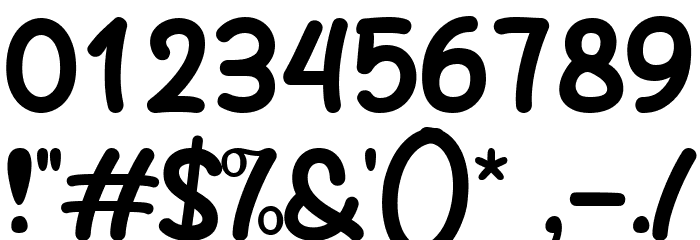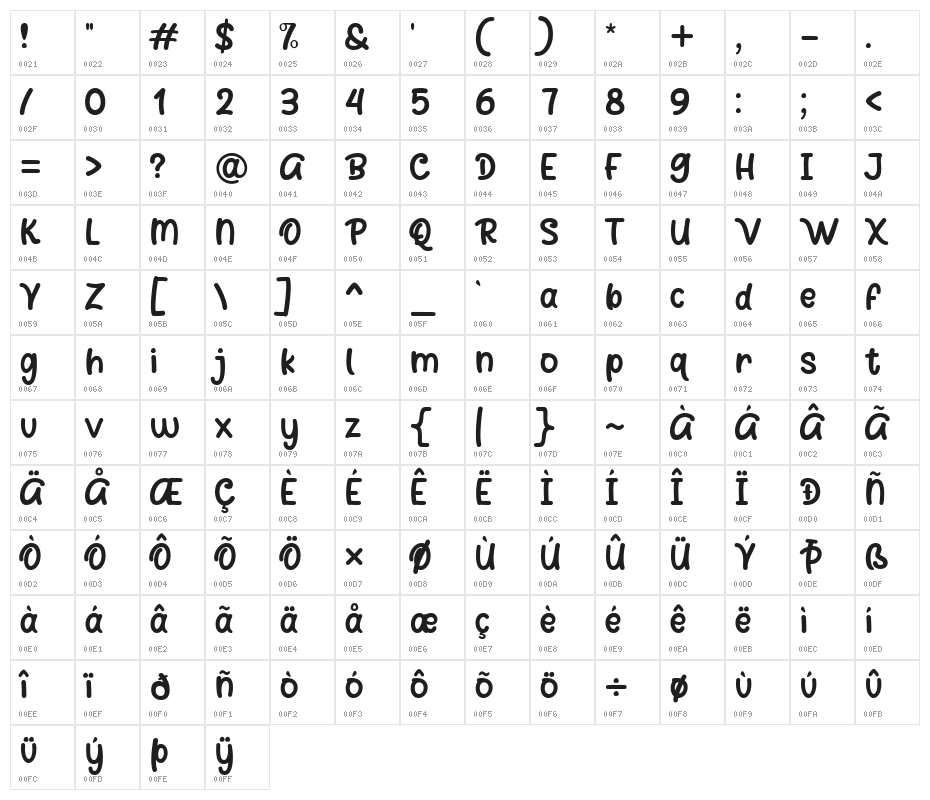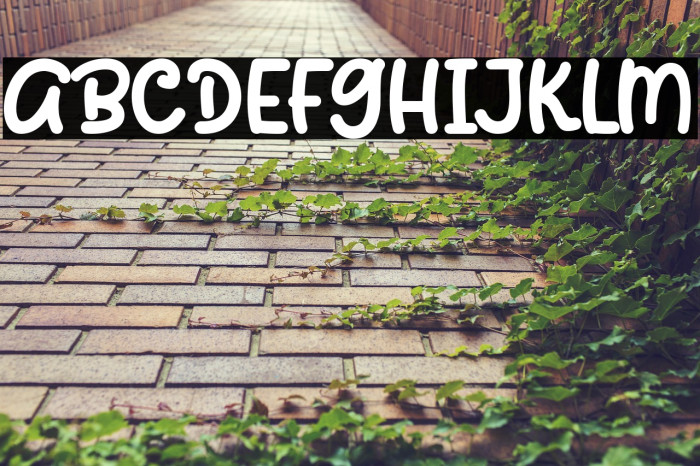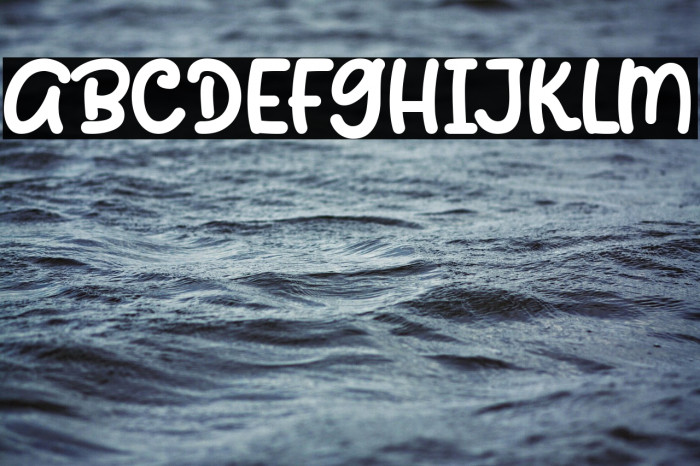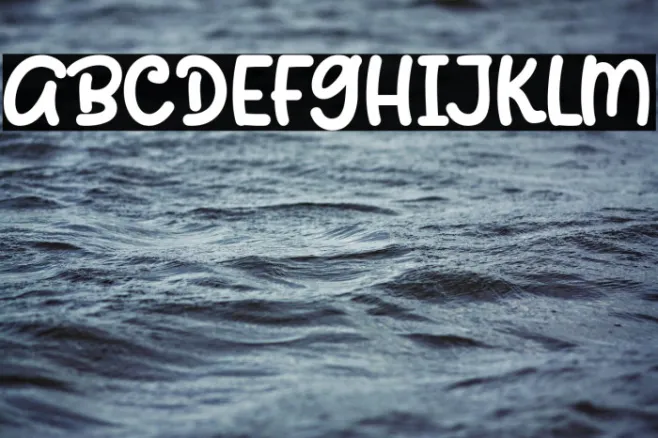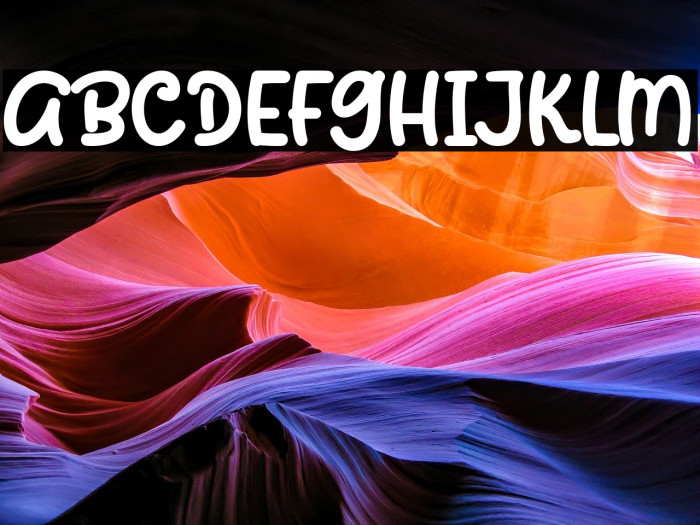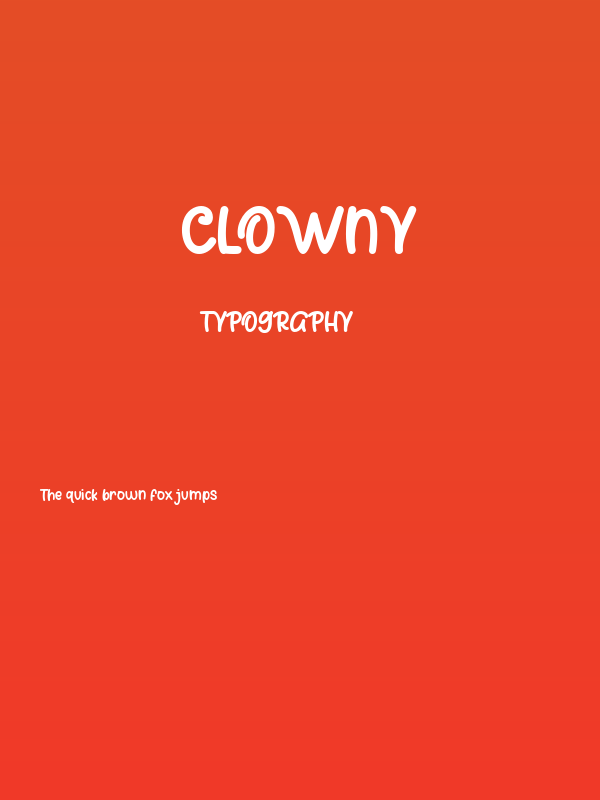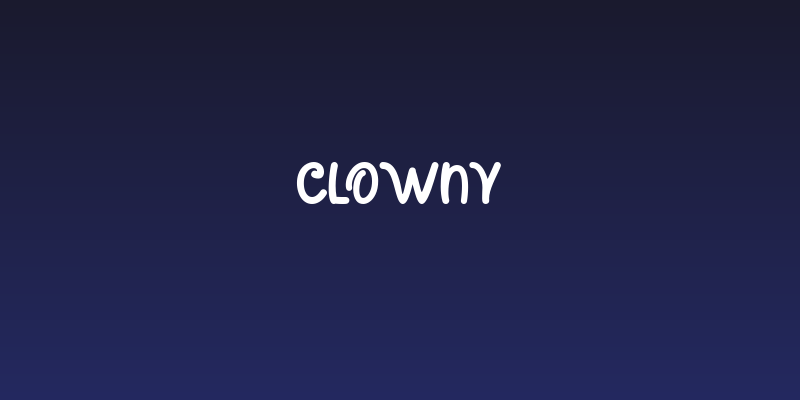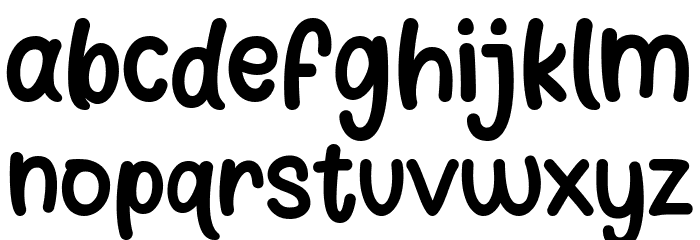
Clowny Font
Clowny Description
This playful and whimsical font features rounded, bubbly characters that exude a sense of fun and lightheartedness. Each letter is crafted with a smooth, flowing style that gives it a hand-drawn appearance, making it perfect for projects that require a touch of creativity and joy. The font maintains a consistent thickness throughout, providing a uniform look that is both approachable and friendly. Its unique character shapes and slightly exaggerated curves make it stand out, adding a distinctive flair to any design. The font includes a full set of uppercase and lowercase letters, numerals, and a variety of special characters, ensuring versatility for different design needs.